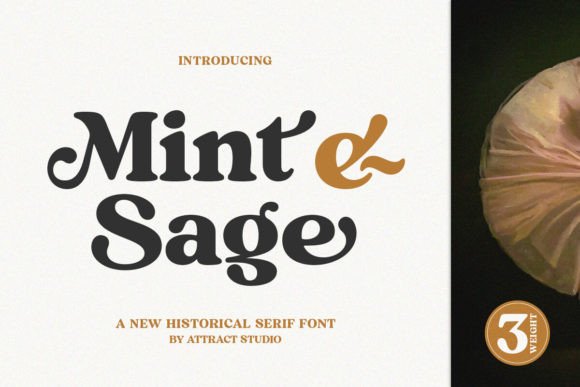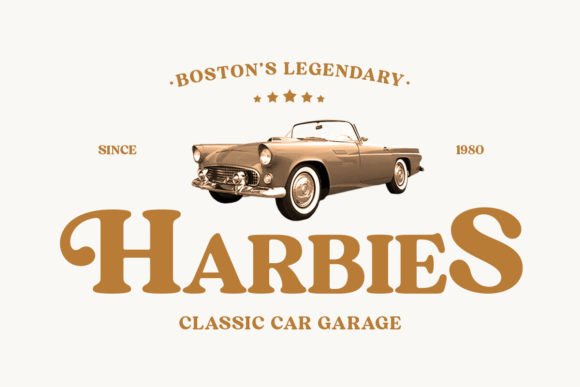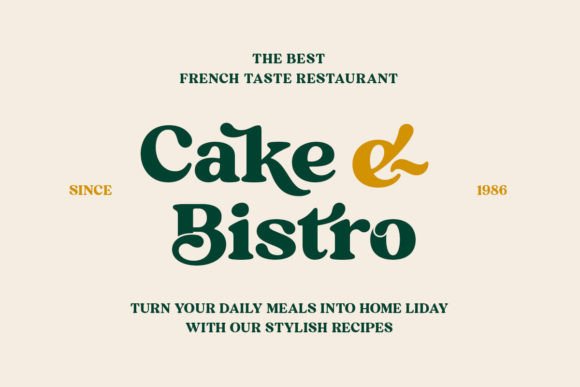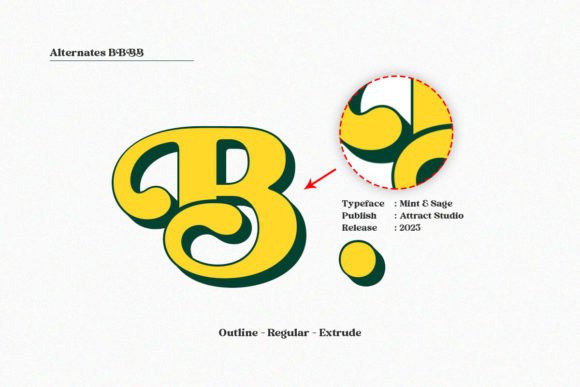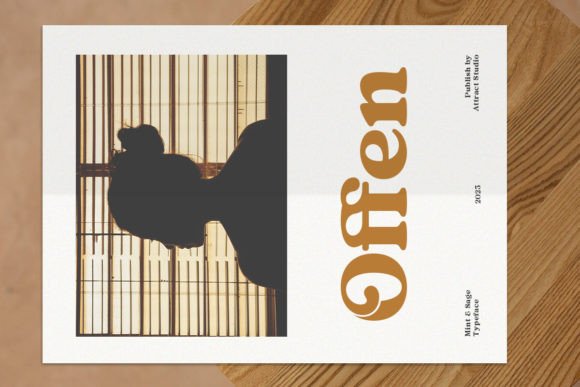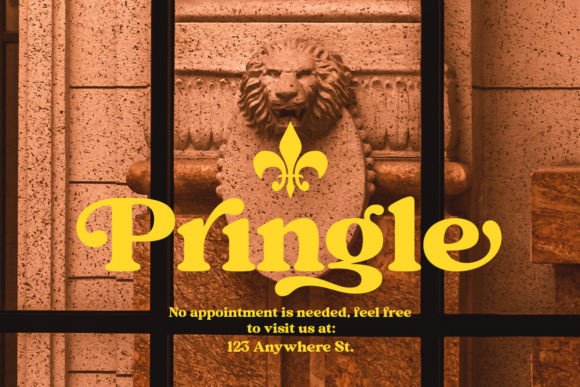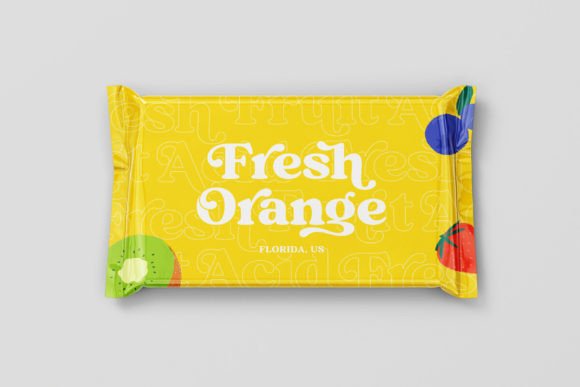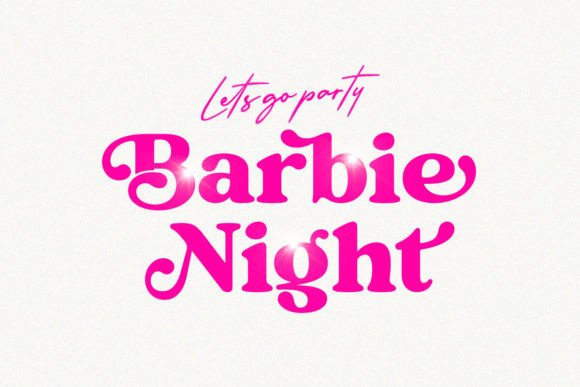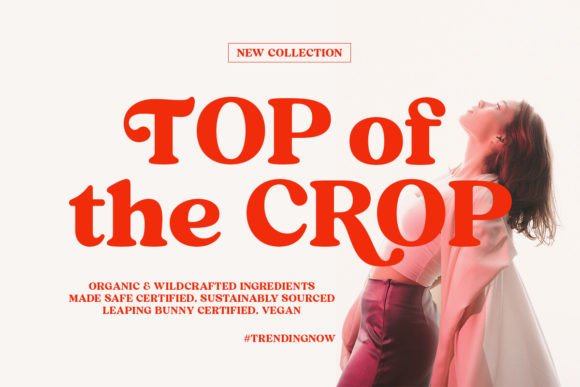
Mint and Sage Font
Mint And Sage is an elegant and bold serif font. Fall in love with its incredibly
versatile style and use it to create gorgeous wedding invitations, beautiful
stationary art, eye-catching social media posts, and much more!